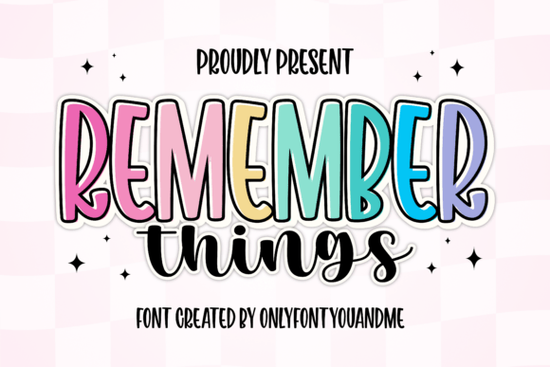
The “Remember Things” font is a versatile and expressive typeface that combines two distinct styles to create a dynamic visual impact. Designed for those who want to add personality and energy to their projects, this font duo is ideal for everything from branding and packaging to social media graphics and print materials. Whether you're a designer, crafter, or small business owner, the “Remember Things” font offers a fresh and engaging way to communicate your message.
One of the standout features of the “Remember Things” font is its bold display style. This tall, thick typeface has smooth curves and playful proportions that make it perfect for headlines and eye-catching designs. The outline layer adds a unique sticker-like effect, giving your work a fun and modern look. It’s especially effective when paired with more casual elements, as it provides a strong visual anchor without overwhelming the design.
The second part of the duo is a handwritten script font that brings a warm and friendly tone to any project. Its brush-like flow gives it a natural, handcrafted feel, making it ideal for invitations, logos, or personal messages. This script complements the bold display font beautifully, creating a balanced mix of structure and spontaneity. Together, these two styles offer a wide range of creative possibilities, allowing you to express different moods and personalities in your work.
How to Use the “Remember Things” Font
When using the “Remember Things” font, consider the context of your project. For example, the bold display font works well for headings, banners, and promotional materials where visibility is key. The script font, on the other hand, is great for body text, signatures, or decorative elements that need a more personal touch. Experimenting with different sizes and placements can help you achieve the right balance between impact and readability.
For best results, use the bold font for short phrases or single words, and the script font for longer text or supporting details. This combination not only looks visually appealing but also enhances the overall clarity of your design. You can also play with color and background to highlight the unique characteristics of each style.
Why Choose the “Remember Things” Font?
If you're looking for a font that stands out while remaining easy to use, the “Remember Things” font is an excellent choice. Its dual-style approach makes it adaptable to a variety of design needs, whether you're working on a professional project or a personal creative endeavor. The font’s cheerful and modern aesthetic ensures that your work feels fresh and engaging, helping you connect with your audience in a meaningful way.
Designers who value both creativity and functionality will appreciate the flexibility of this font duo. It’s suitable for a wide range of applications, including logos, social media posts, greeting cards, and more. With its clean lines and expressive character, the “Remember Things” font can elevate your designs without requiring complex styling or adjustments.
Before finalizing your design, make sure to test the font in different sizes and contexts to ensure it meets your needs. Consider the readability, legibility, and overall aesthetic of your work to achieve the best results. Whether you’re creating a logo, a poster, or a digital layout, the “Remember Things” font can help you bring your vision to life with style and confidence.
Checklist for Using the “Remember Things” Font:
- Test the font in different sizes and formats.
- Pair it with complementary fonts for balance.
- Use the bold style for headlines and the script for body text.
- Experiment with colors and backgrounds to enhance the design.
- Ensure the font is appropriate for your target audience and project goals.